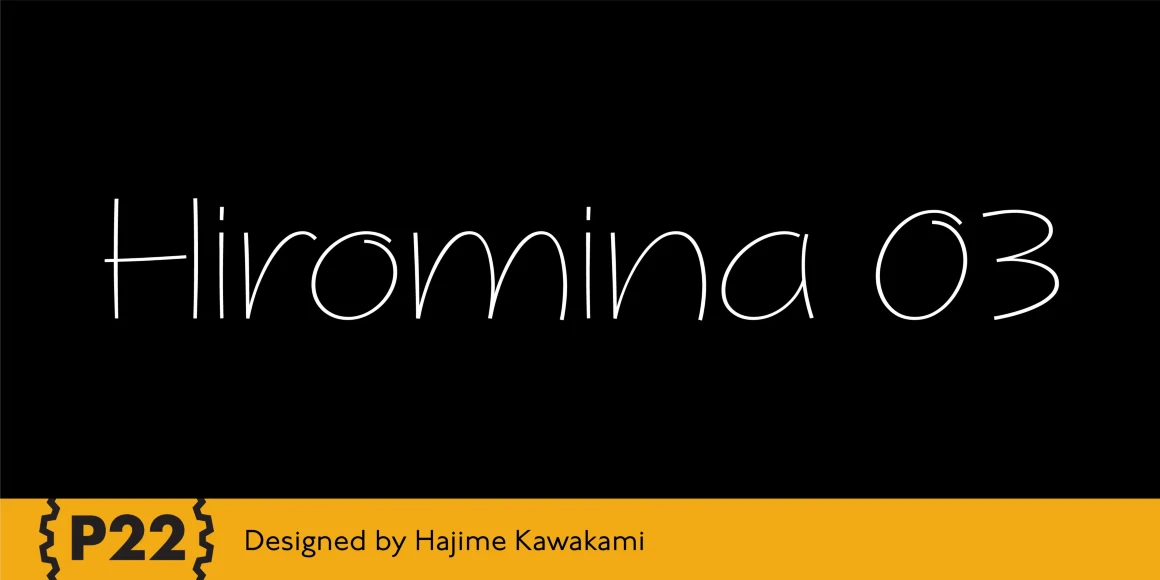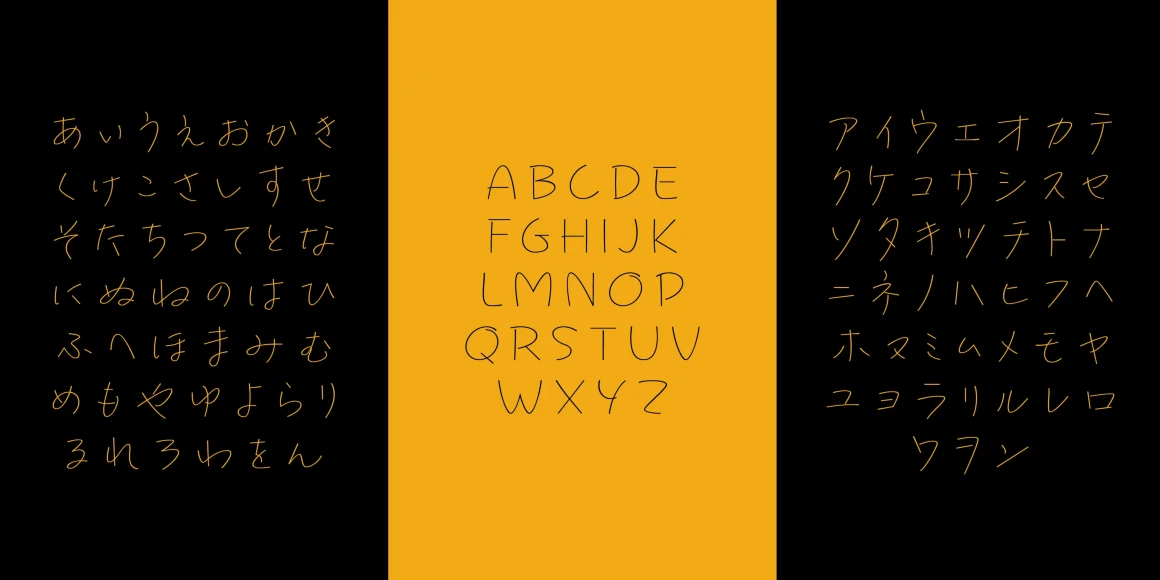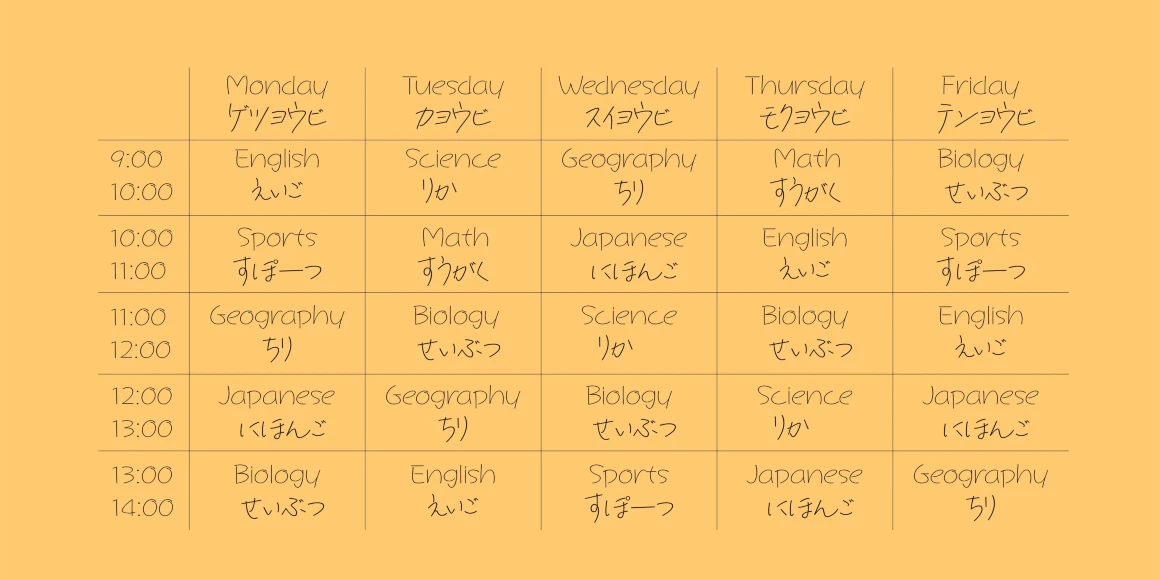
Hiromina03
Hiromina03 is based on Hiromi Kawakami’s unique Script lettering style. The distinctly feminine character of Hiromina03 is harmoniously integrated in all three writing systems: Katakana, Hiragana and Latin.
Designed by Hajime Kawakami
Hiromina03 Hiragana
Hiromina03 Katakana
Hiromina03 Latin